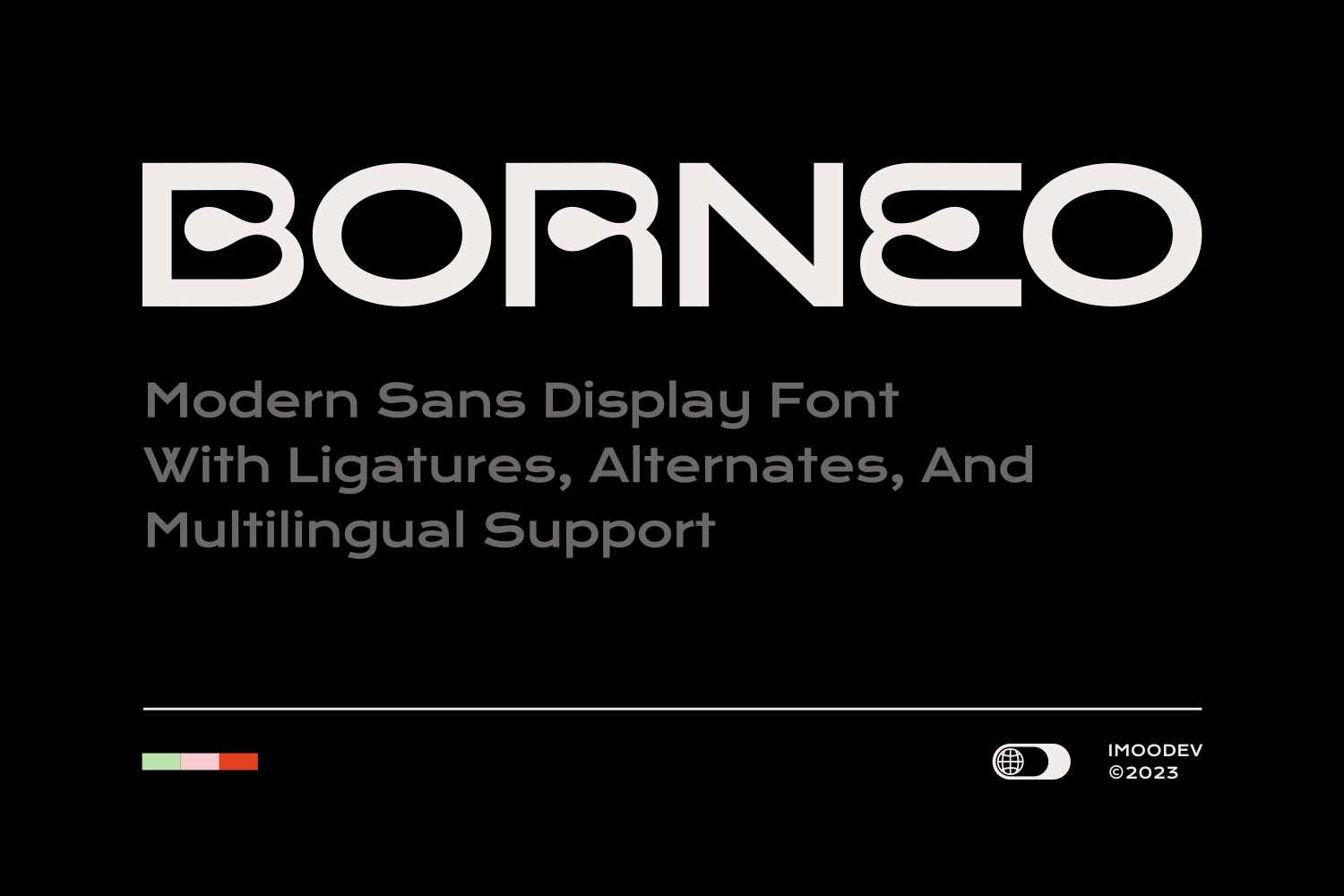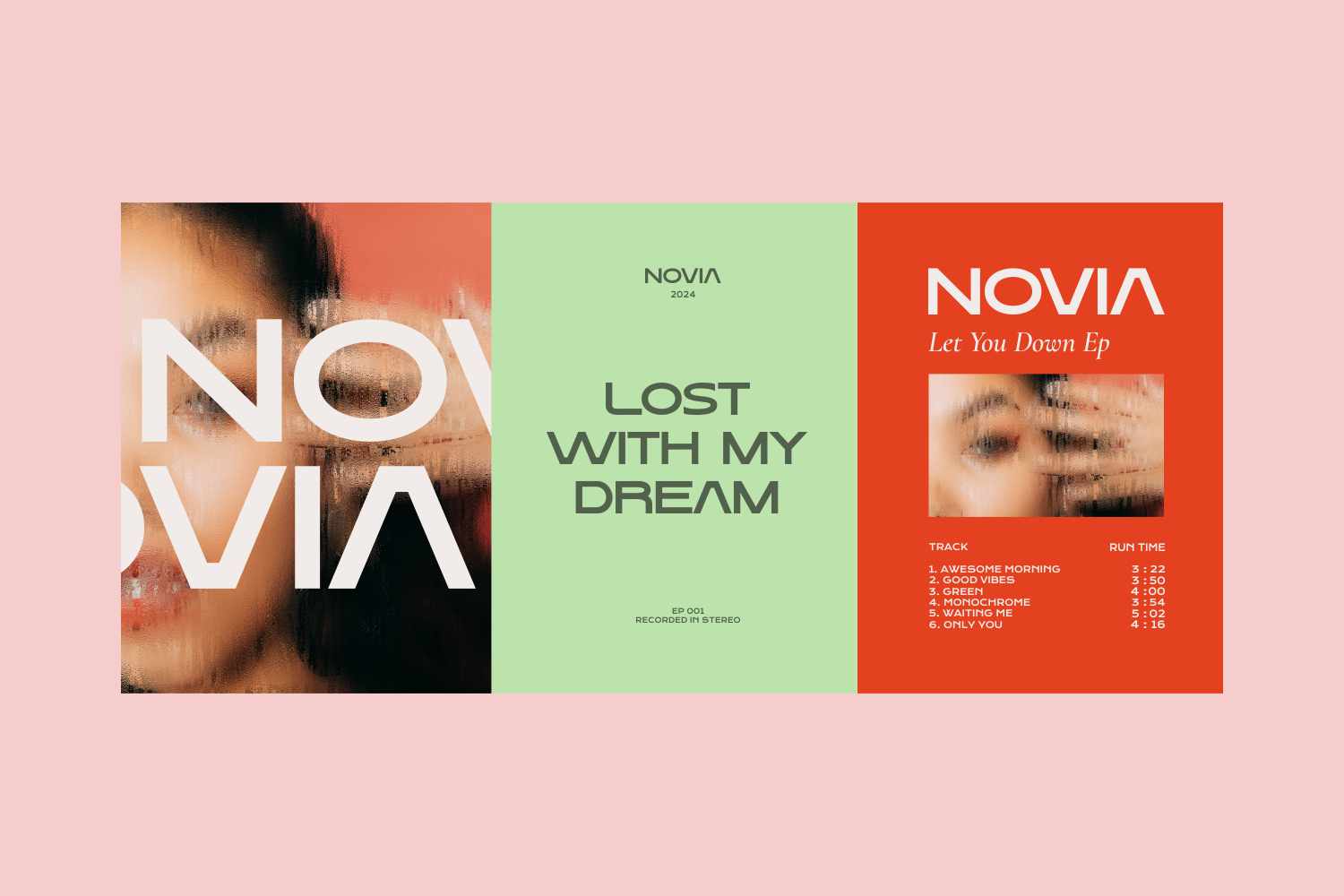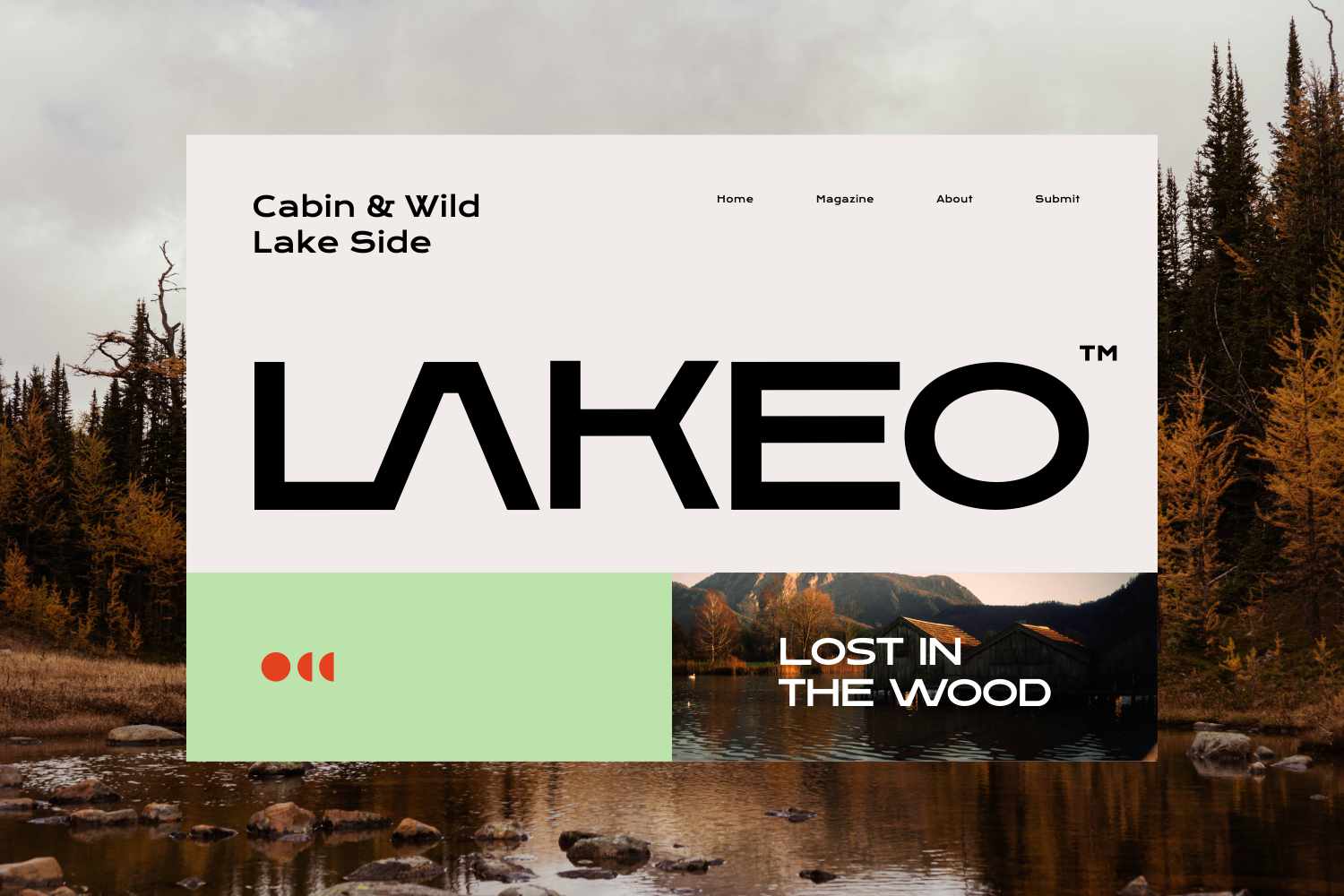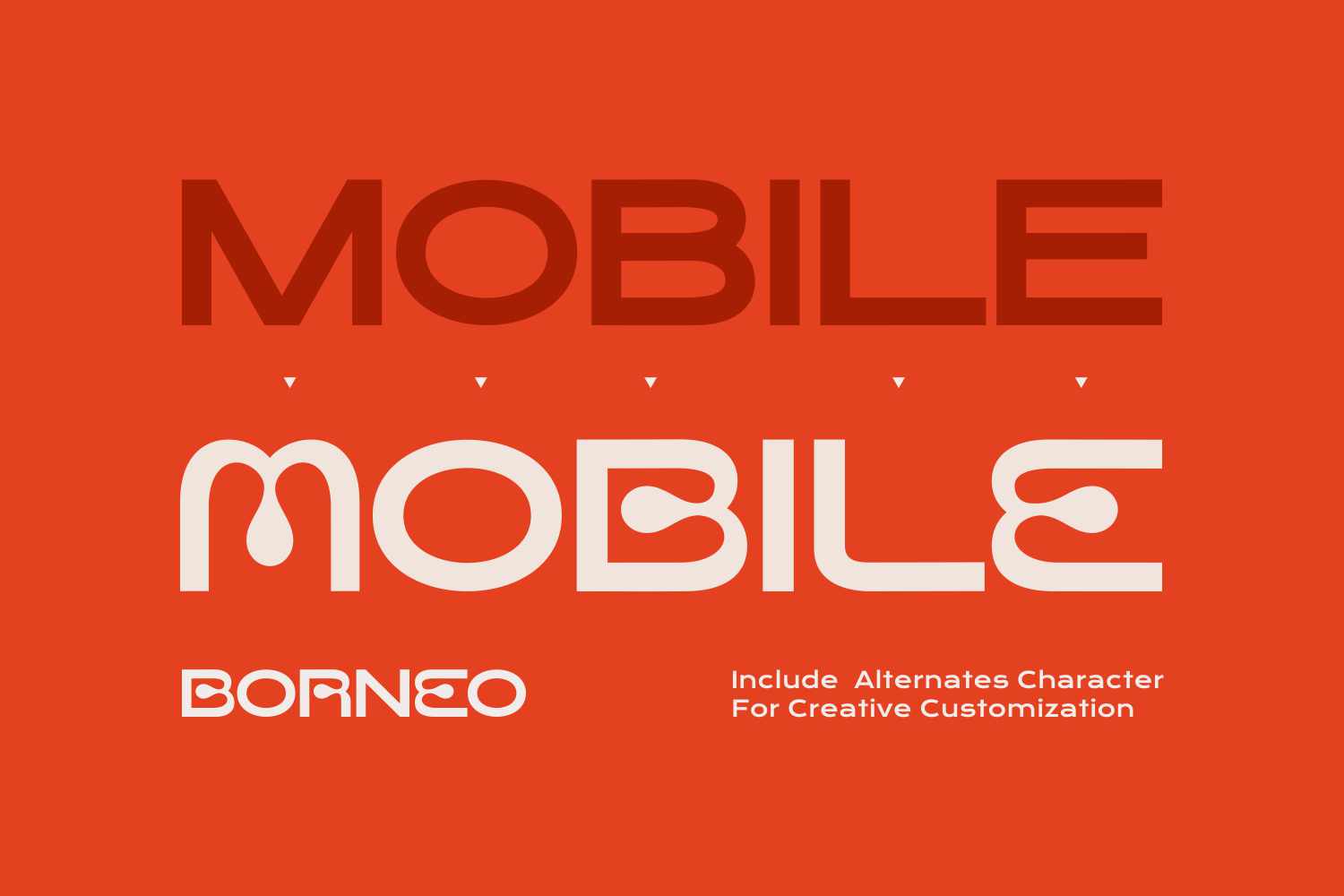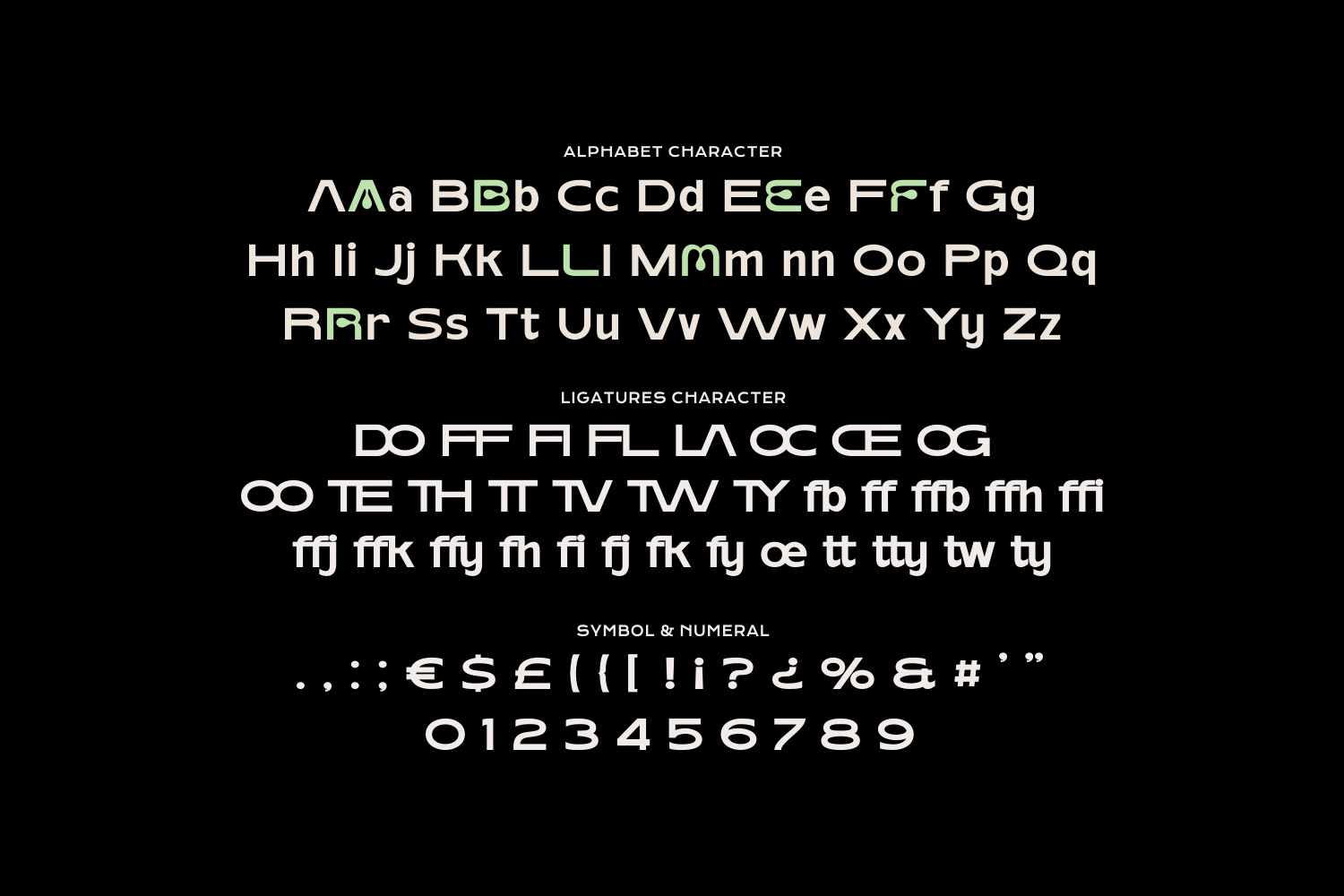
Borneo is a modern sans display font that fuses bold geometry with artistic details, resulting in a futuristic yet versatile design. Its clean structure, paired with unique alternates and ligatures, creates a striking visual identity that works beautifully across branding, editorial design, posters, packaging, and digital interfaces. The font’s sharp edges and smooth curves reflect a balance of strength and elegance, making it perfect for projects that demand a bold and innovative typographic statement.
With a full set of uppercase, lowercase, numerals, punctuation, multilingual support, and creative ligatures, Borneo provides endless possibilities for customization. Designers can experiment with alternate characters to achieve fresh and expressive layouts, making it highly suitable for music covers, fashion branding, tech startups, and lifestyle projects. Whether used in minimal compositions or vibrant modern designs, Borneo ensures your typography stands out with confidence and style.
Borneo